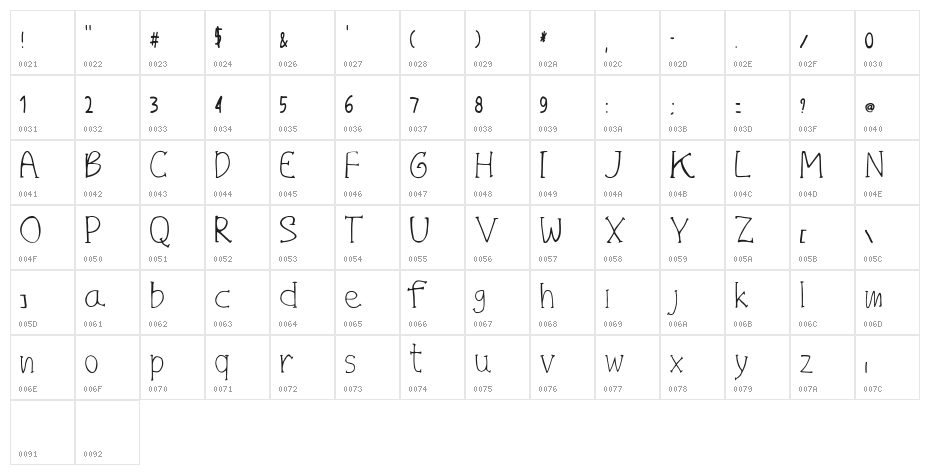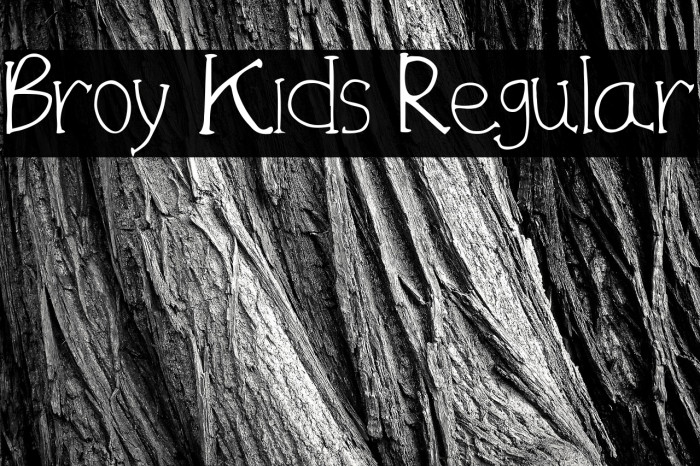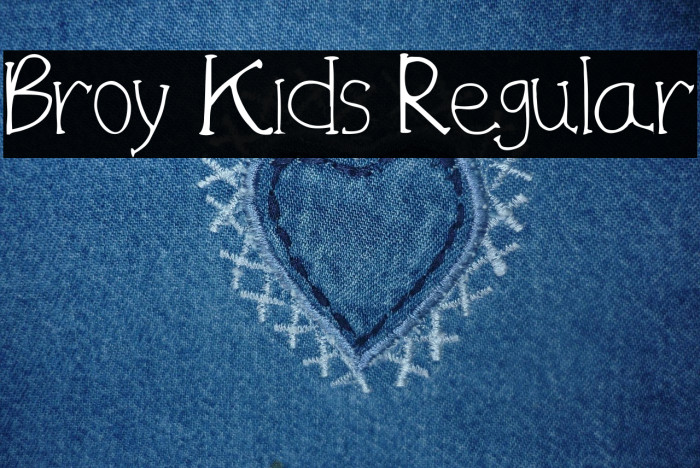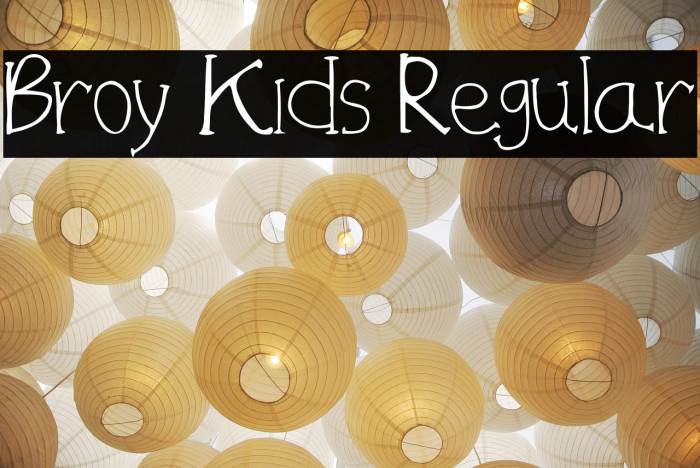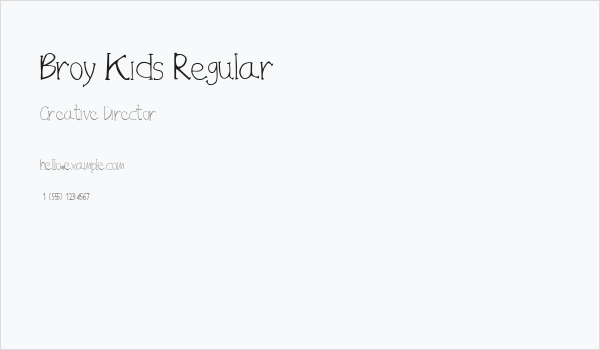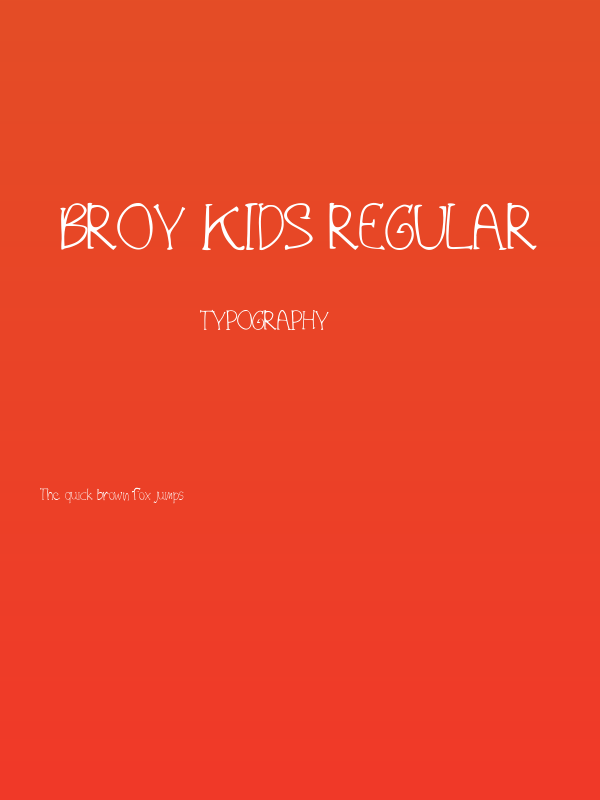
Broy Kids Regular Font
Broy Kids Regular Description
This playful and whimsical font features a hand-drawn style with irregular, slightly wavy lines that give it a casual and friendly appearance. The uppercase letters are bold and distinct, with unique characteristics such as the looped 'G' and the curved 'R'. The lowercase letters maintain a consistent style, with rounded edges and a slightly uneven baseline, adding to the font's charm. The numerals are clear and easy to read, while the special characters retain the same playful aesthetic. This font is perfect for projects that require a fun and approachable look, such as children's books, educational materials, or playful branding.
A playful, hand-drawn font with a whimsical and friendly style from Cartoon fonts.
- Font: Broy Kids Regular
- No. of Characters:: 90
- Proposed Projects: Ideal for children's books, educational materials, playful branding, and casual invitations.
- Overall Style: Playful
- Use Case: Headlines, Logos, Informal Text